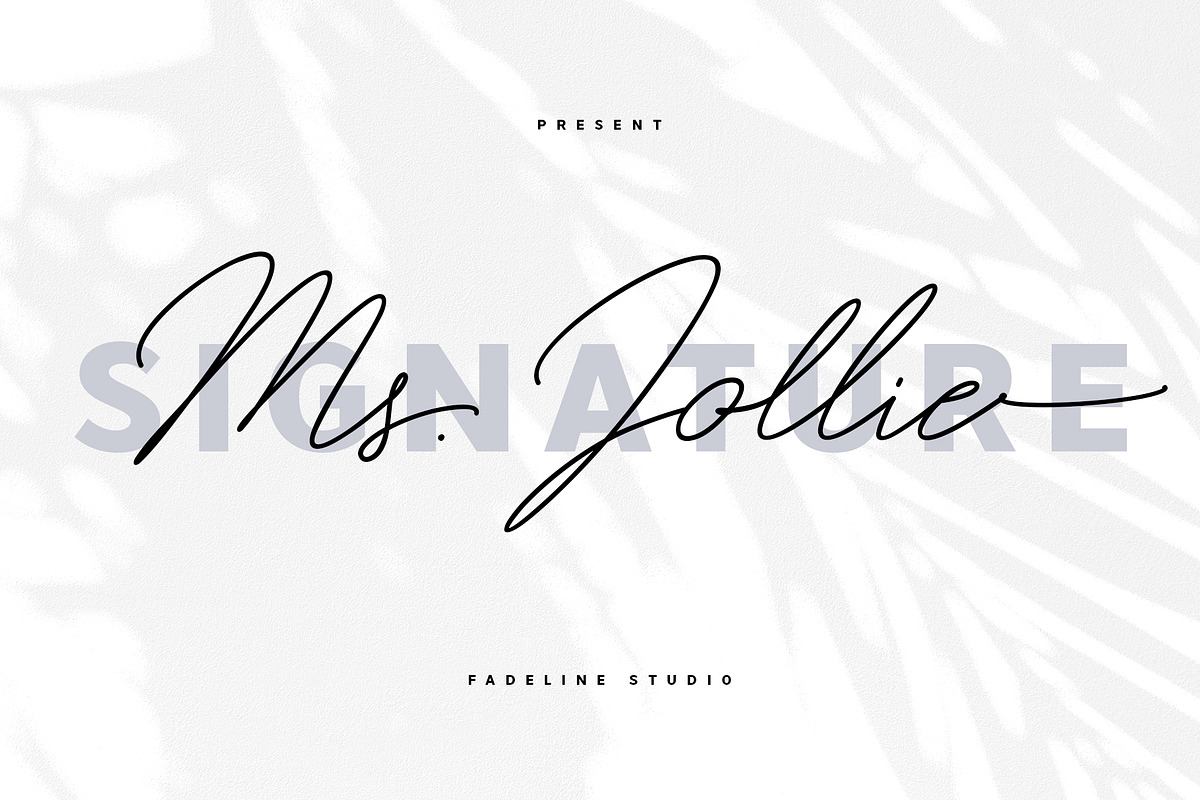
Ms. Jollie Signature Free Download
Ms. Jollie Signature Font Free Download
Ms. Jollie Signature Font Free Download is a graceful and stylish handwritten script designed to add a personal, elegant touch to your designs. With its smooth curves and flowing strokes, this font is perfect for creating logos, wedding invitations, branding, and social media content. The signature style gives it a sophisticated yet authentic feel, making it ideal for luxury brands, personalized gifts, or special occasions. Whether you’re designing for a chic boutique, crafting invitations, or creating creative promotional content, Ms. Jollie Signature Font Free Download lets you explore its refined style in personal projects before purchasing a commercial license. Add a touch of elegance and personality to your designs with this beautifully crafted signature font.